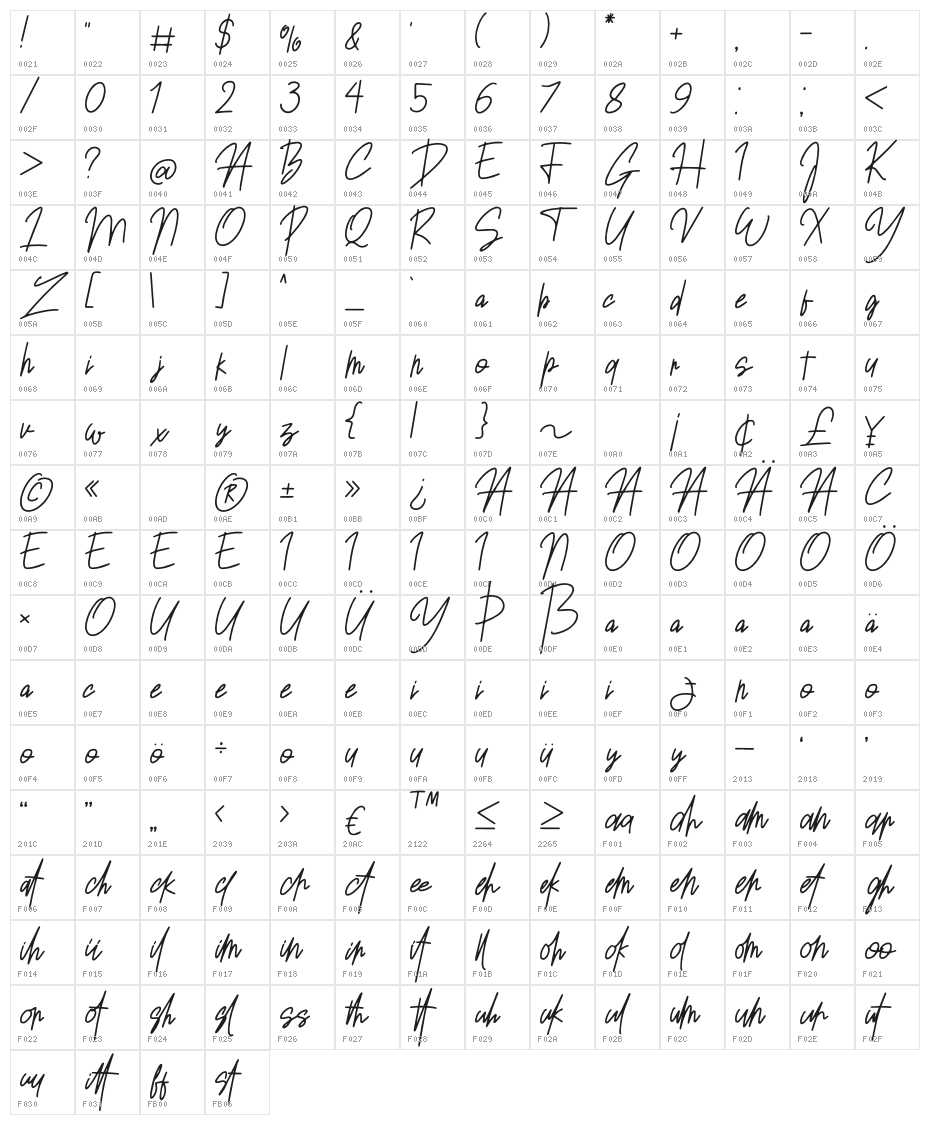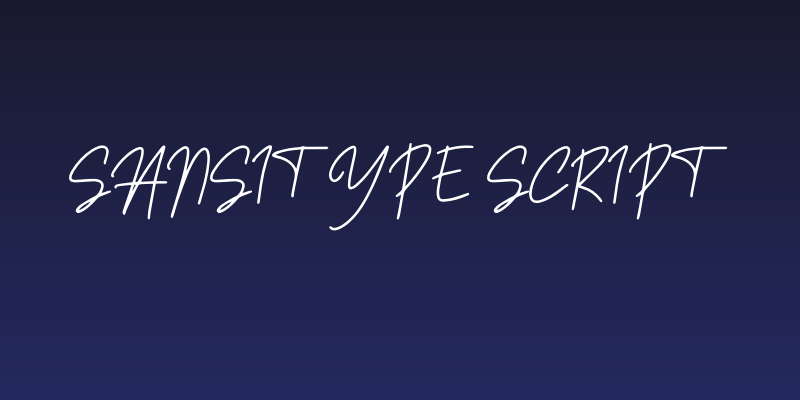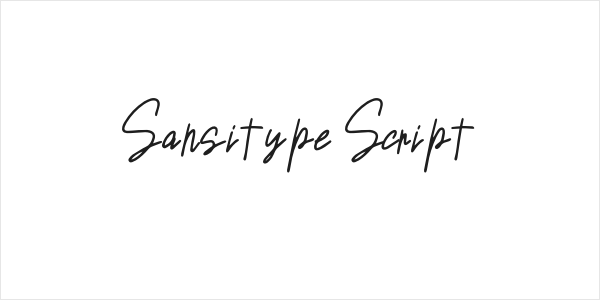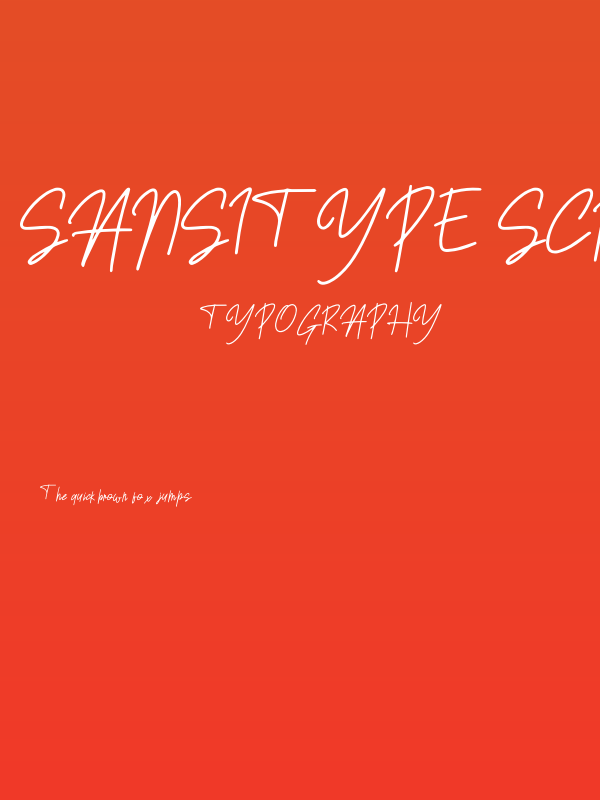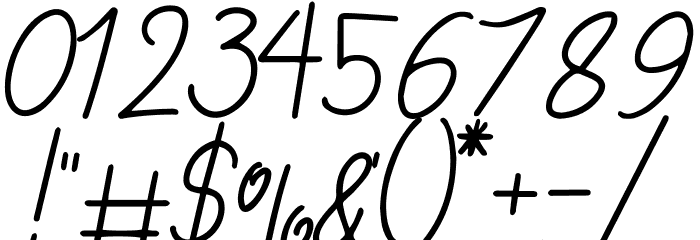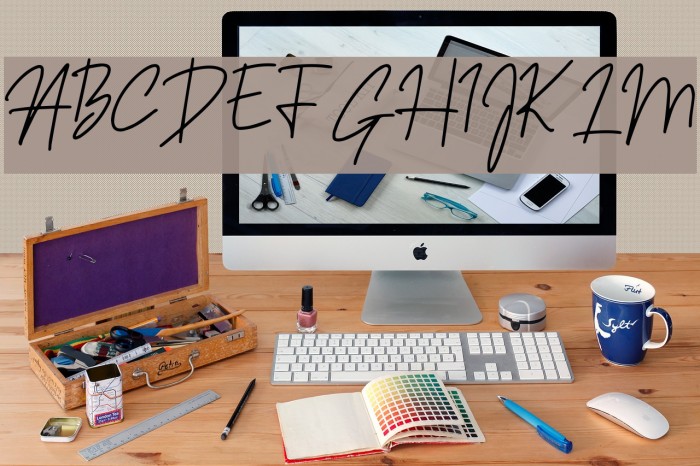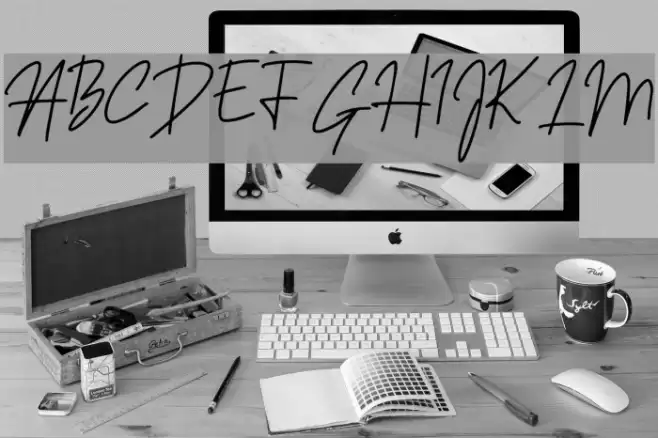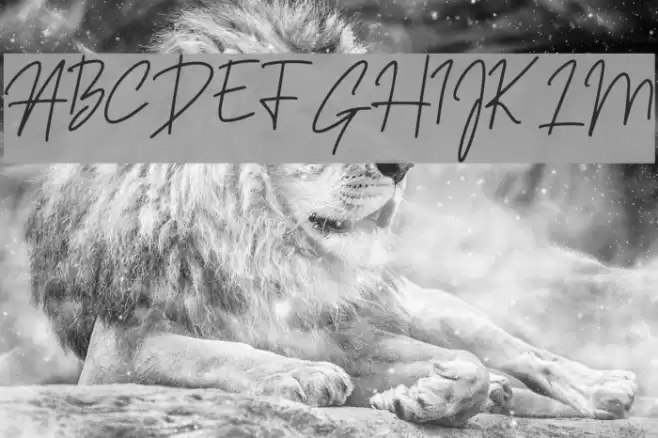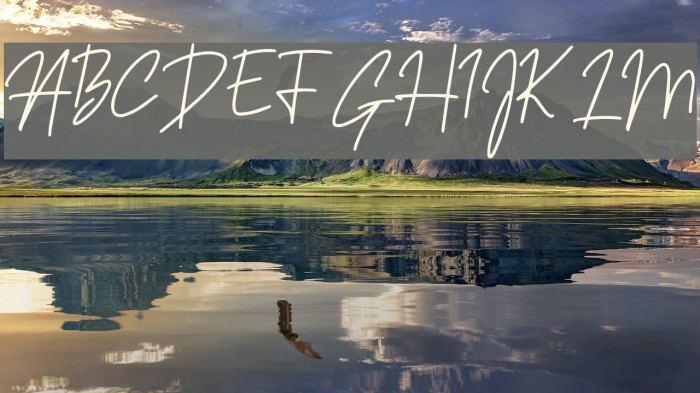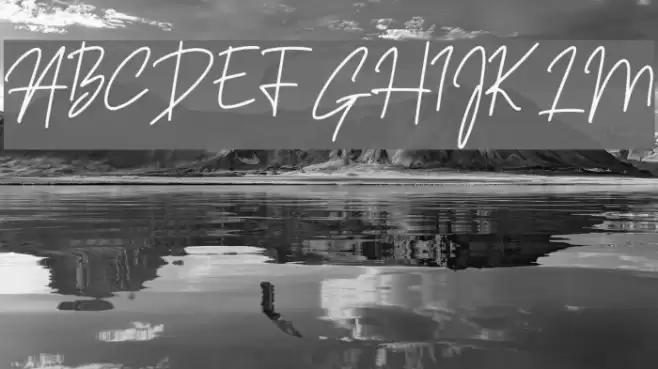
Sansitype Script Font
Sansitype Script Description
This font exudes a lively and dynamic character, with its fluid, cursive strokes that mimic the natural flow of handwriting. Each letter is crafted with a sense of motion, creating an energetic and informal appearance. The uppercase letters maintain a consistent height, while the lowercase letters vary slightly, adding to the font's organic feel. The numerals are well-integrated, matching the overall style with their rounded and flowing forms. Special characters are thoughtfully designed to complement the script, ensuring versatility across various applications.
| Use Case | Logos, Invitations, Greeting Cards |
| Proposed Projects | Ideal for personal branding, invitations, greeting cards, and creative projects that require a personal touch. |